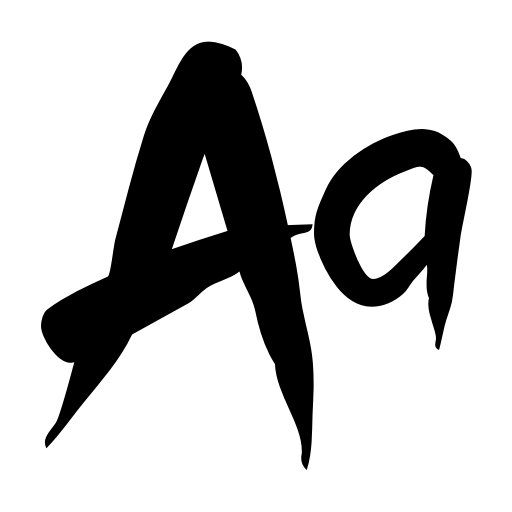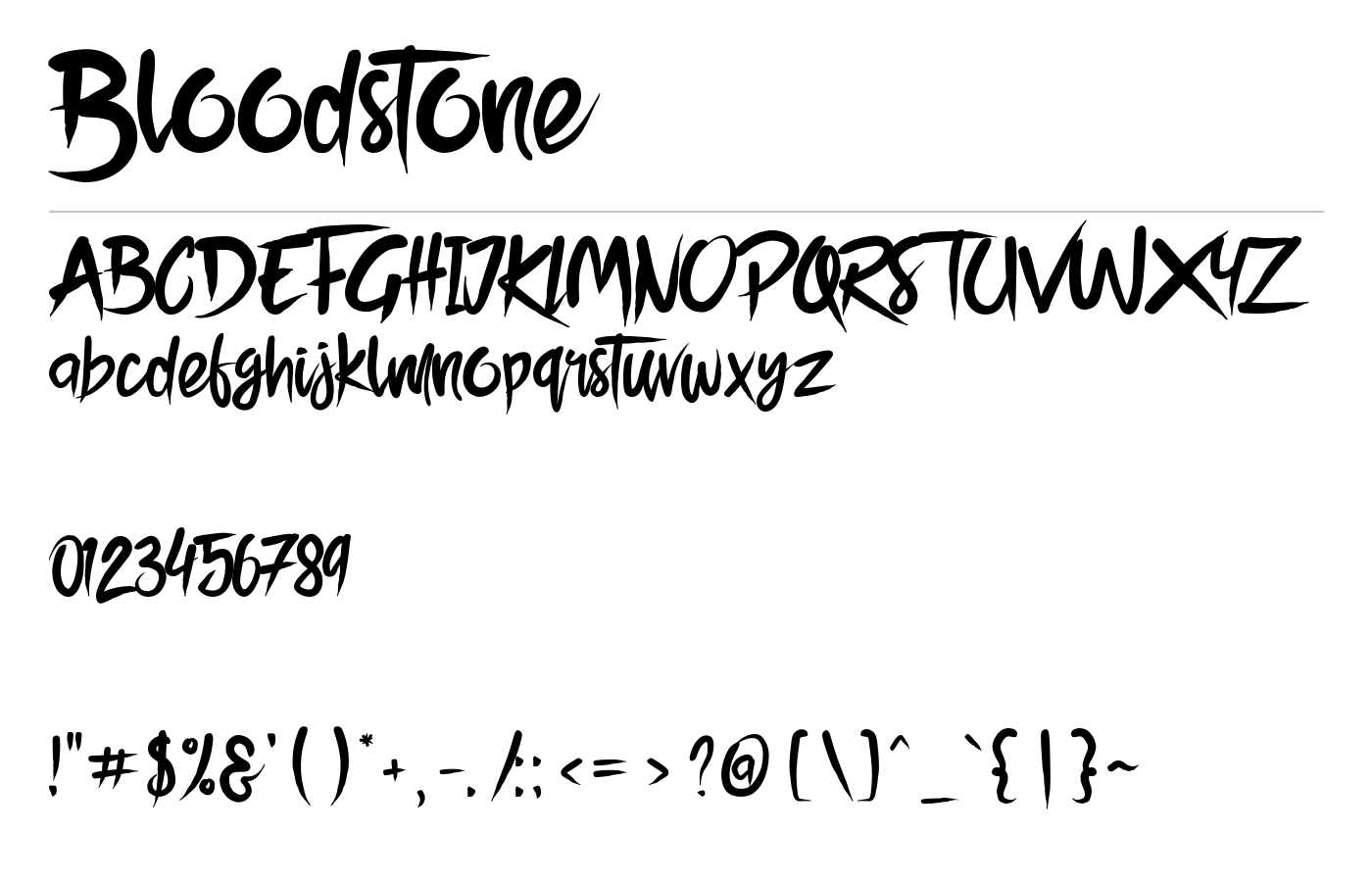
Bloodstone is a bold, expressive script font with a hand-painted feel, featuring sharp, jagged strokes that create a dynamic and slightly edgy appearance. Its high contrast and irregular letterforms add a sense of energy and personality, making it ideal for creative designs, posters, and branding that seek a dramatic, urban, or rebellious vibe. This font works well where impactful, standout headlines or logos are desired, providing a strong, artistic statement.
Bloodstone Font
About Bloodstone Font